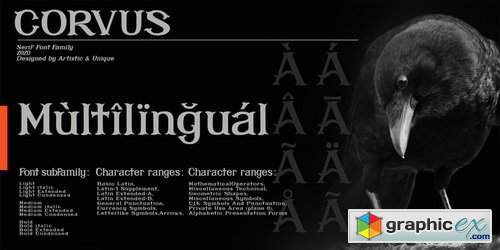
Corvus Font Family
Corvus is a display serif font family, stylized with elegant soft turns that soften the sharp ends. Due to its structure, this font can meet your needs in all your modern or classic creative projects.